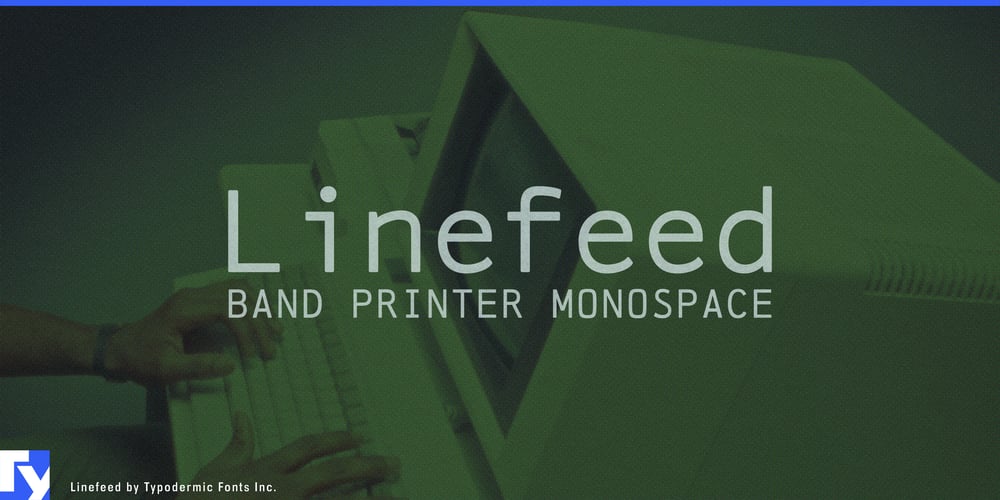
Linefeed Font Family was designed by Ray Larabie and published by Typodermic. Linefeed contains 1 styles and family package options. Step back into the era of whirring machines and groundbreaking technology with Linefeed, a monospaced typeface that captures the essence of 1960s and ’70s computer band printers. This retro-inspired font pays homage to the clunky yet revolutionary devices that produced some of the most significant documents of their time.Imagine a row of hammers, one for each column, rhythmically striking paper against ribbon and raised characters on a continuously revolving steel band. This mechanical dance is the heart of Linefeed, a typeface that honors the technology that laid the foundation for our digital age. While original band printers were often limited to uppercase letters, digits, and minimal punctuation for maximum efficiency, Linefeed expands this beloved aesthetic with lowercase letters, extended punctuation, and accent marks—bringing new life to a classic design. During its heyday, Linefeed’s predecessors were ubiquitous, gracing everything from driver’s licenses and magazine subscription labels to report cards, invoices, and auto dealership window stickers. Now, in an age dominated by sleek, modern designs, Linefeed offers designers a refreshing throwback to computing’s golden age. Its technical design and vintage charm make it the perfect choice for projects that demand a touch of nostalgia or a nod to the innovative spirit of early computer technology.Linefeed isn’t just a trip down memory lane—it’s a versatile tool for contemporary designers. Its monospaced layout and distinctive character make it ideal for creating eye-catching headlines, evoking a sense of authenticity in period pieces, or adding a unique flair to modern designs that want to stand out from the crowd. Whether you’re working on a retro-themed branding project, designing a cutting-edge tech interface with a twist, or simply looking to infuse your work with the spirit of innovation that defined an era, Linefeed delivers with pixel-perfect precision. Just as the early computers bridged language barriers, Linefeed carries on this tradition with its extensive language support. It’s fluent in a wide array of Latin-based European writing systems, ready to punch out your message in dozens of languages. From the bustling streets of Amsterdam to the sun-soaked coasts of Portugal, Linefeed can print your ideas in Dutch, English, French, German, Italian, Spanish, and many more. Its character set covers most Latin-based European languages, ensuring your vintage-inspired designs can resonate across borders.Ready to give your designs a taste of computing history? Download Linefeed now and start creating documents that look like they’ve time-traveled from the dawn of the digital age. With Linefeed, every project becomes a piece of living history—functional, authentic, and undeniably cool.